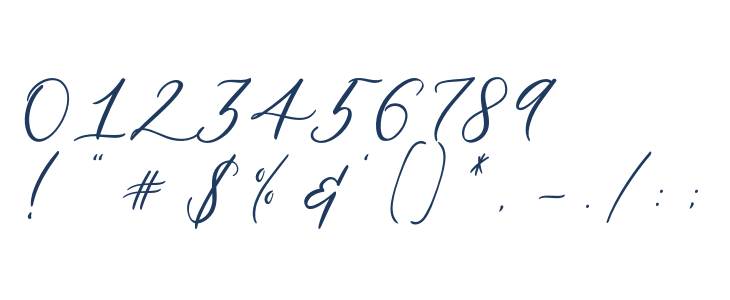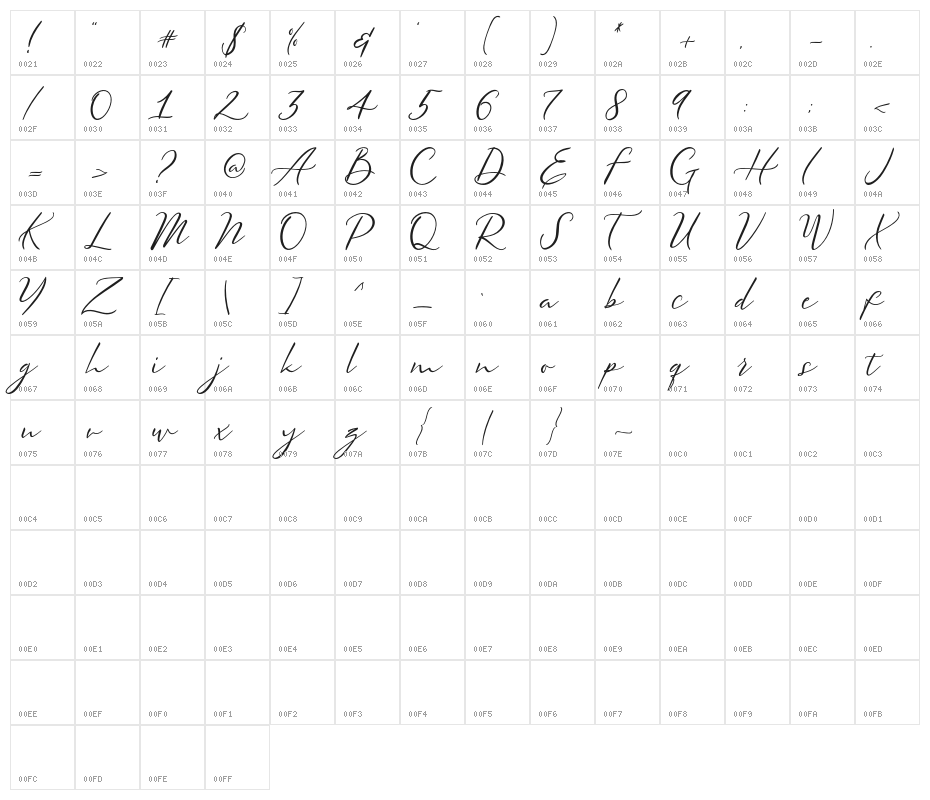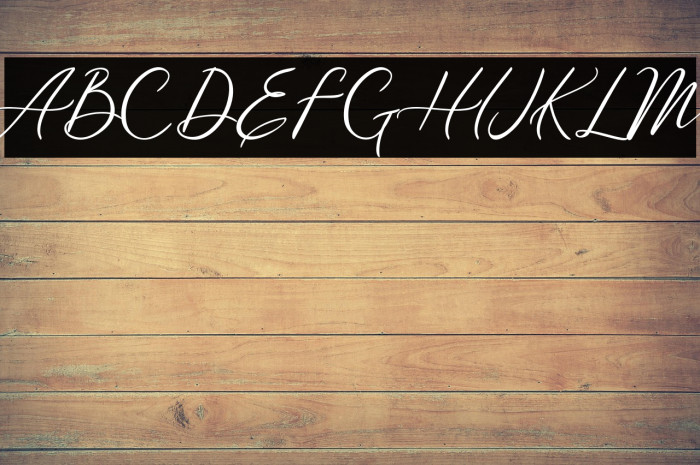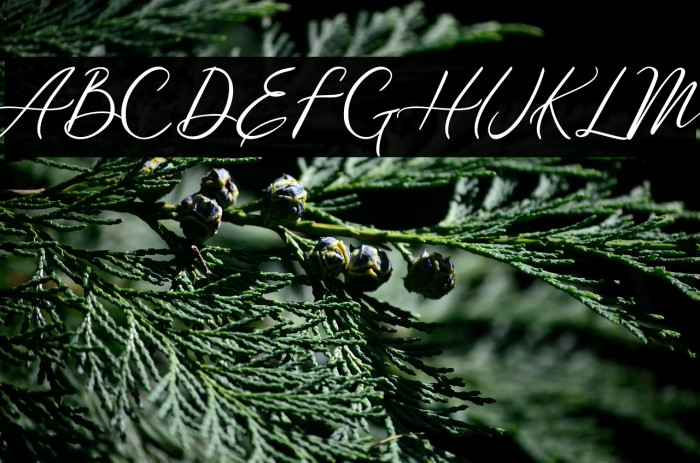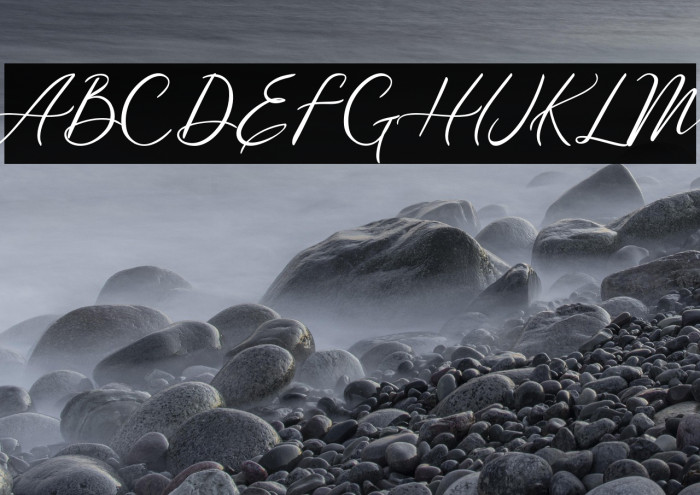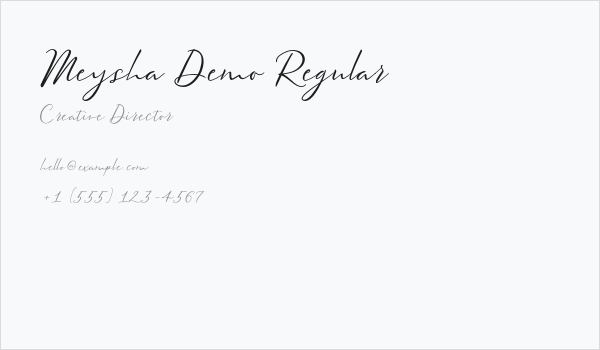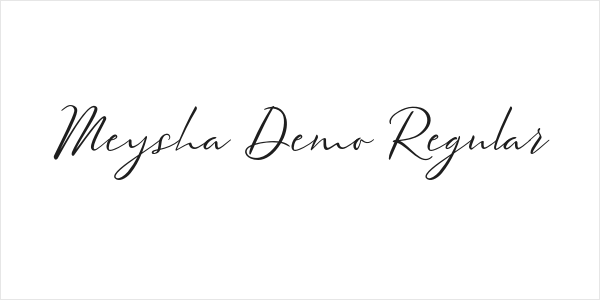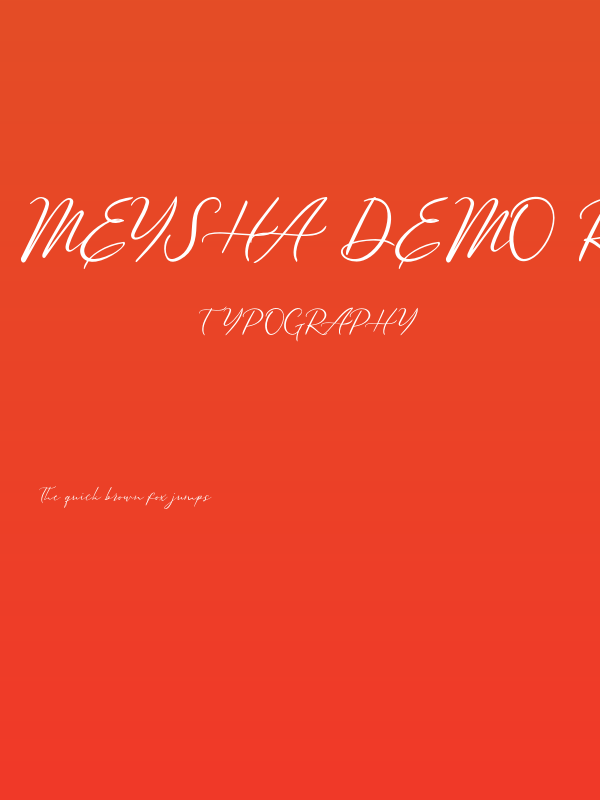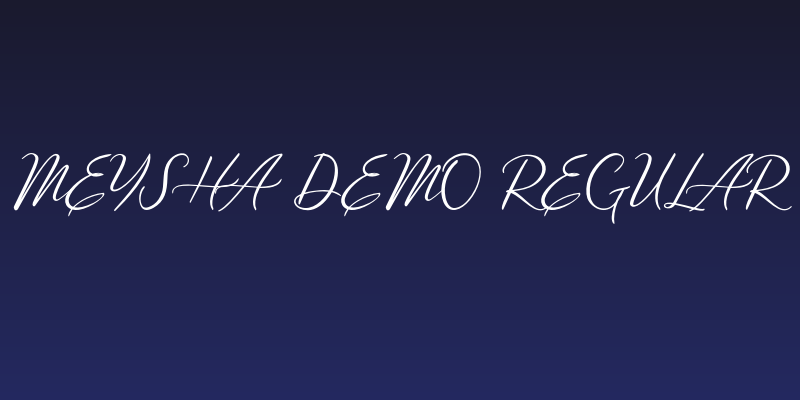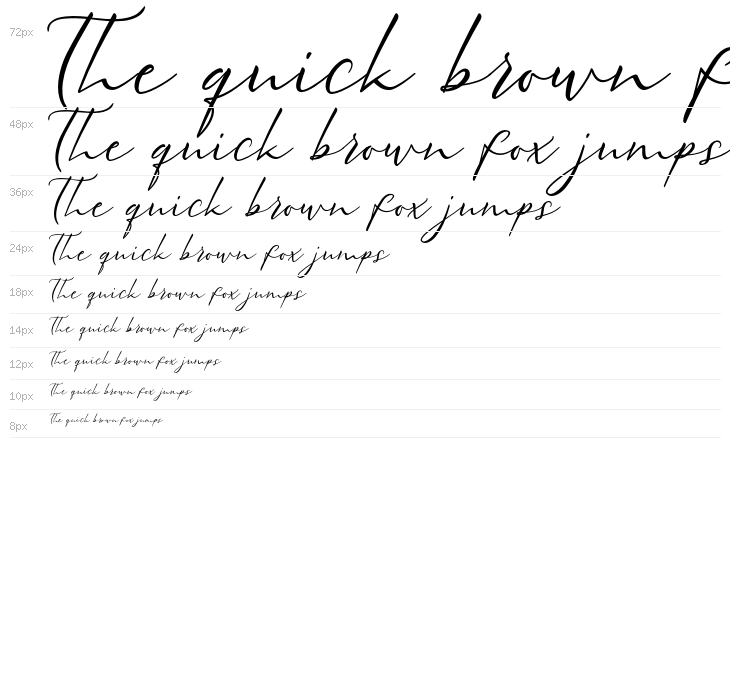
Meysha Demo Regular Font
Meysha Demo Regular Description
This font exudes elegance and fluidity, characterized by its cursive script style that mimics natural handwriting. The letters are connected, creating a seamless flow that is both graceful and sophisticated. The uppercase letters stand tall with gentle curves, while the lowercase letters maintain a consistent slant, enhancing the handwritten feel. The numerals and special characters are crafted with the same attention to detail, ensuring uniformity across the font. Its delicate strokes and smooth transitions make it ideal for projects that require a personal touch.